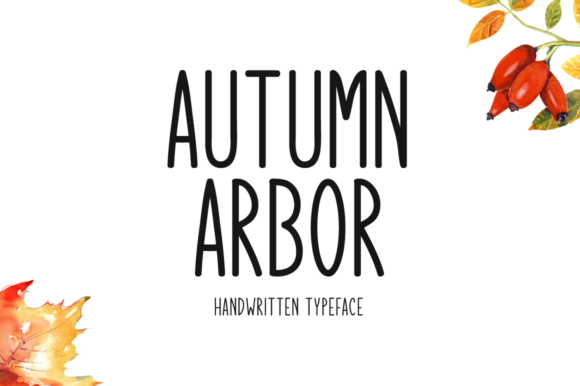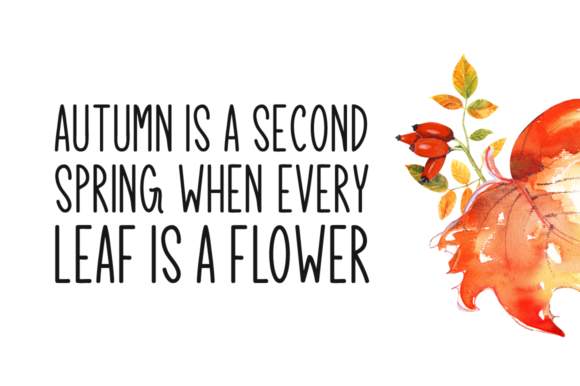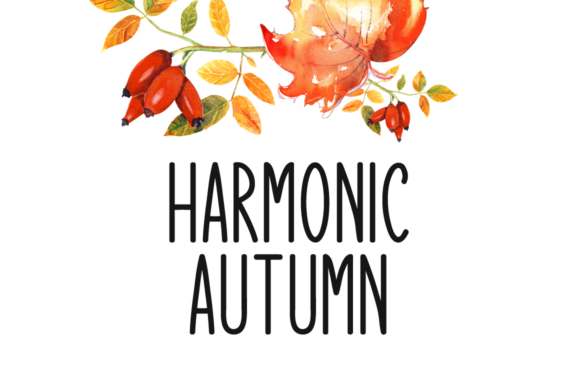
Autumn Arbor Font
About Autumn Arbor Font
Autumn Arbor is a simple, thin and tall lettered handwritten font. Its natural and unique style makes it incredibly fitting to a large pool of designs. The only limit is your imagination!